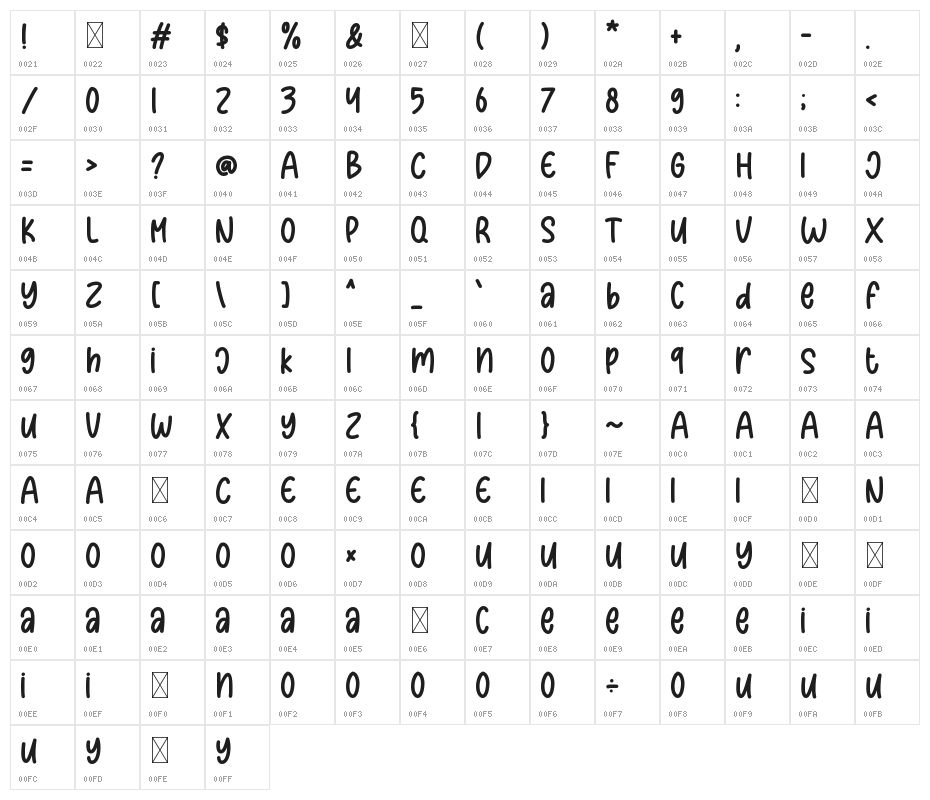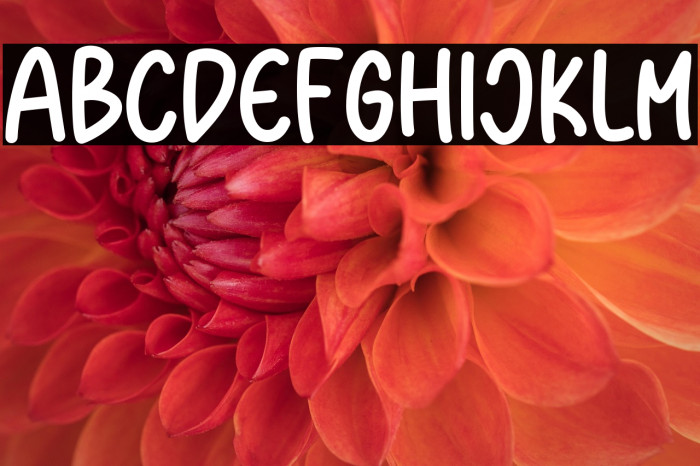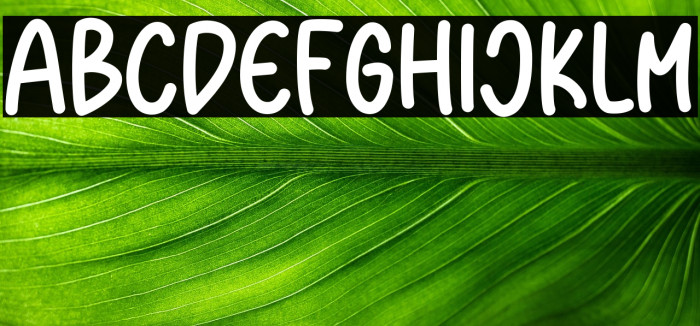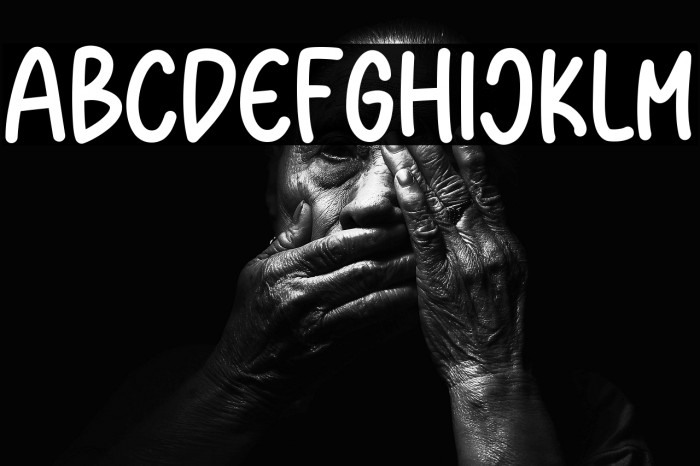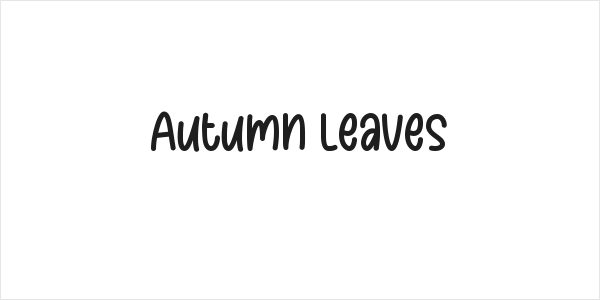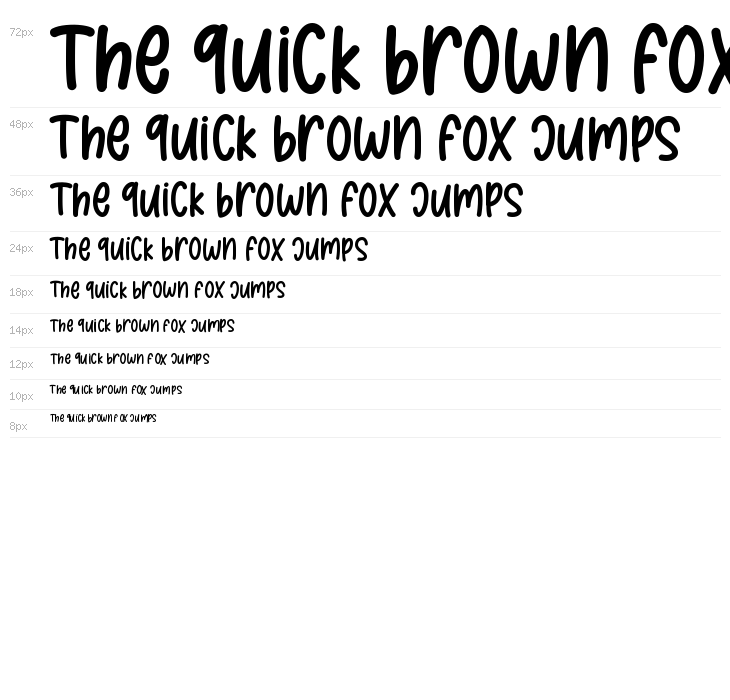
Autumn Leaves Font
Autumn Leaves Description
This font features a playful and casual handwritten style, characterized by its bold and rounded letterforms. The strokes are consistent in thickness, giving it a uniform appearance. The letters have a slight slant, adding to the informal and friendly feel. The uppercase and lowercase letters are well-balanced, with a smooth flow that enhances readability. The numerals and special characters maintain the same playful aesthetic, making this font versatile for various design needs. Its overall appearance is approachable and lively, suitable for projects that require a personal touch.
| Use Case | Logos, Headlines, Informal Text |
| Proposed Projects | Ideal for greeting cards, children's books, casual branding, and social media graphics. |